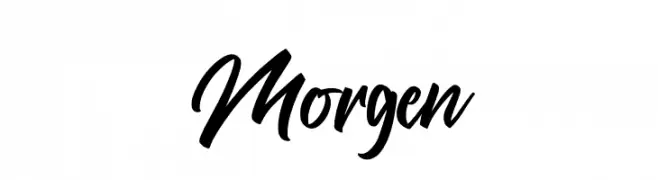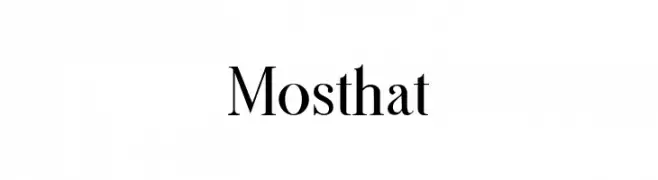
A modern, geometric font with bold, slightly condensed characters.
A bold, cursive font with fluid, connected letters and a lively appearance.
A dynamic, cursive script font with medium contrast and elegant flow.
An elegant script font with flowing, ornate characters and high contrast strokes.
A playful, rounded font with smooth curves and a friendly appearance.
A bold, playful font with rounded edges and a friendly appearance.
A smooth, flowing italic font with a playful and elegant style.
A playful, casual font with smooth, rounded edges and slightly irregular letterforms.
A bold, high-contrast Blackletter font with intricate, ornate details.
A classic serif font with elegant strokes and high contrast, perfect for formal use.